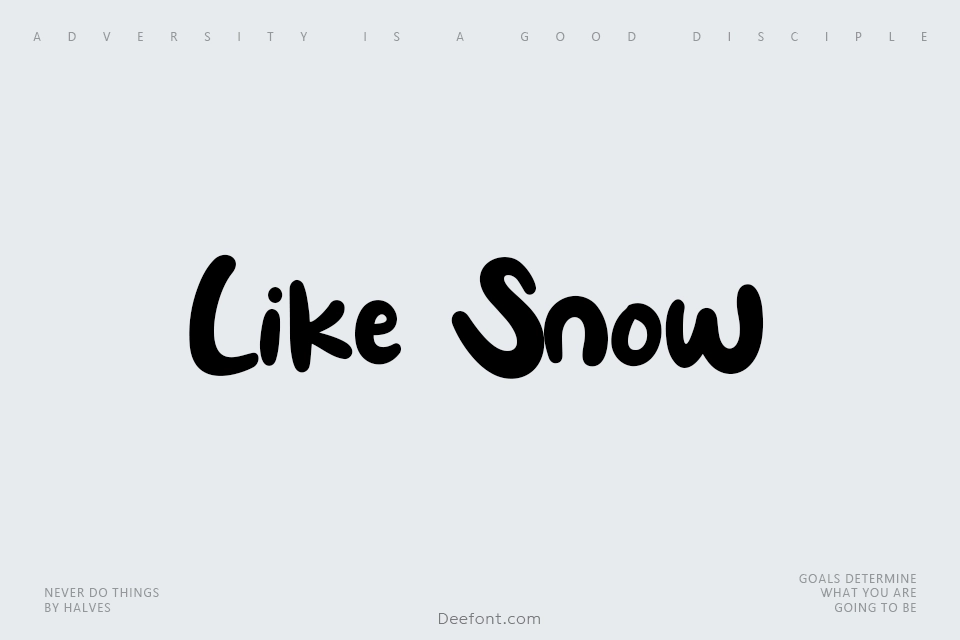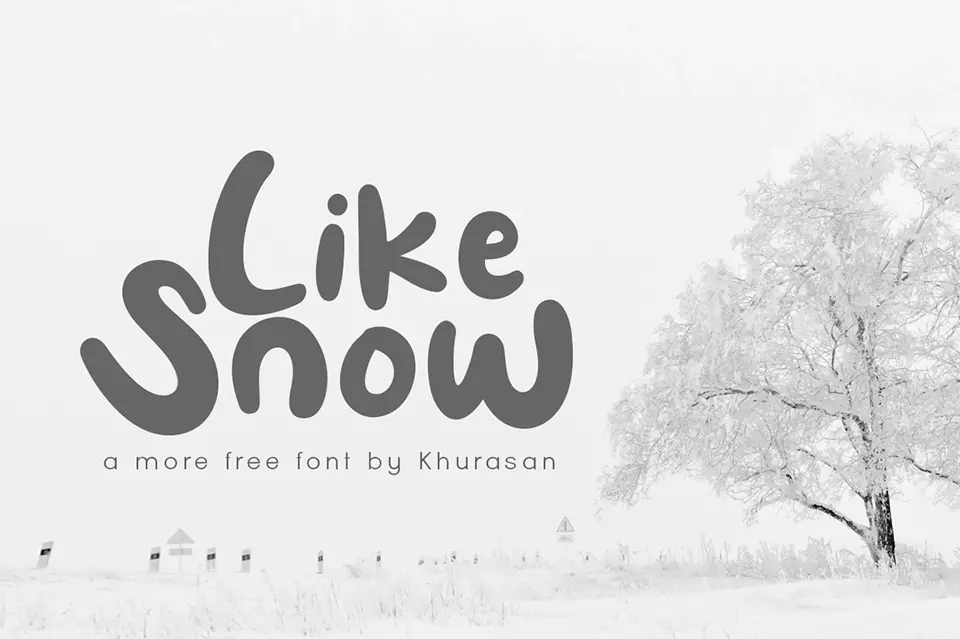
Like Snow Font
Like Snow is a playful, bold, and eye-catching display font featuring rounded, hand-drawn letterforms with thick consistent strokes. Designed by Khurasan, this whimsical typeface exudes creativity and friendliness, making it perfect for informal and creative projects. The irregular character shapes add a personal touch, ideal for children’s books, branding, greeting cards, posters, and social media designs. With over 105 glyphs and excellent readability, Like Snow brings a lively, energetic feel to any creative work. Its unique style combines modern design sensibilities with playful charm.